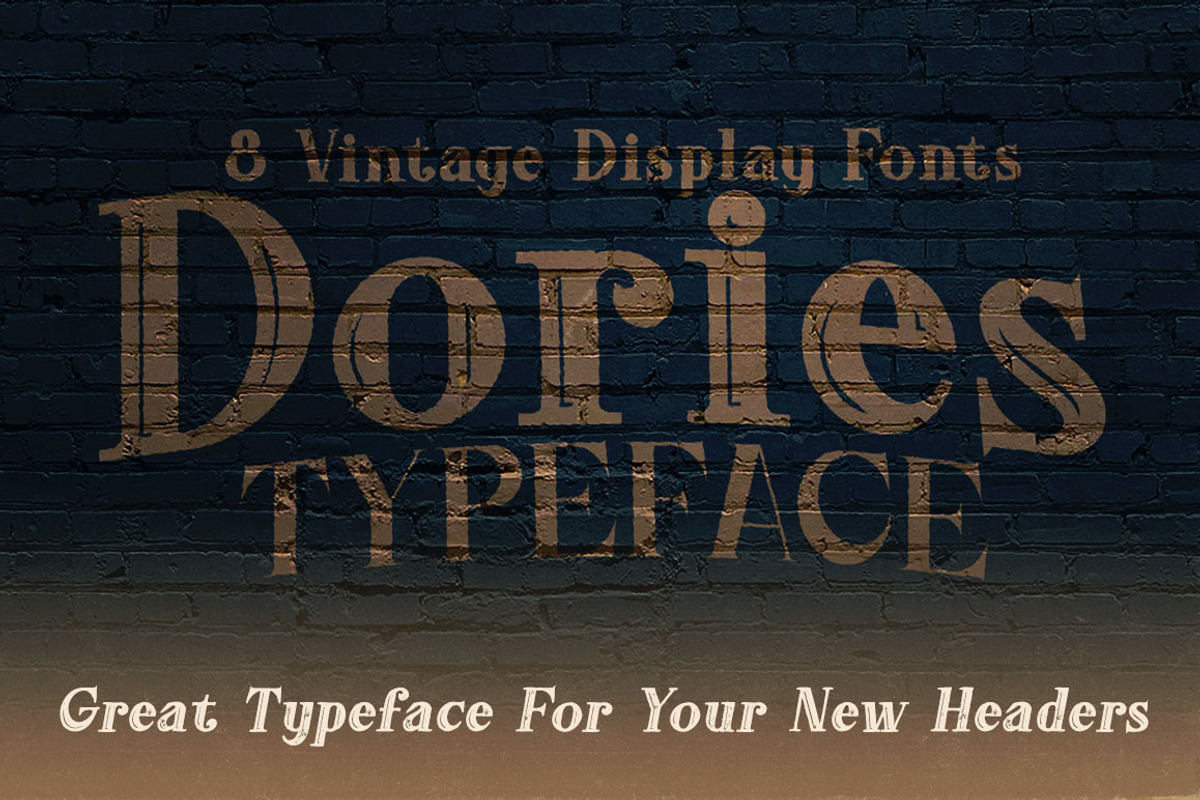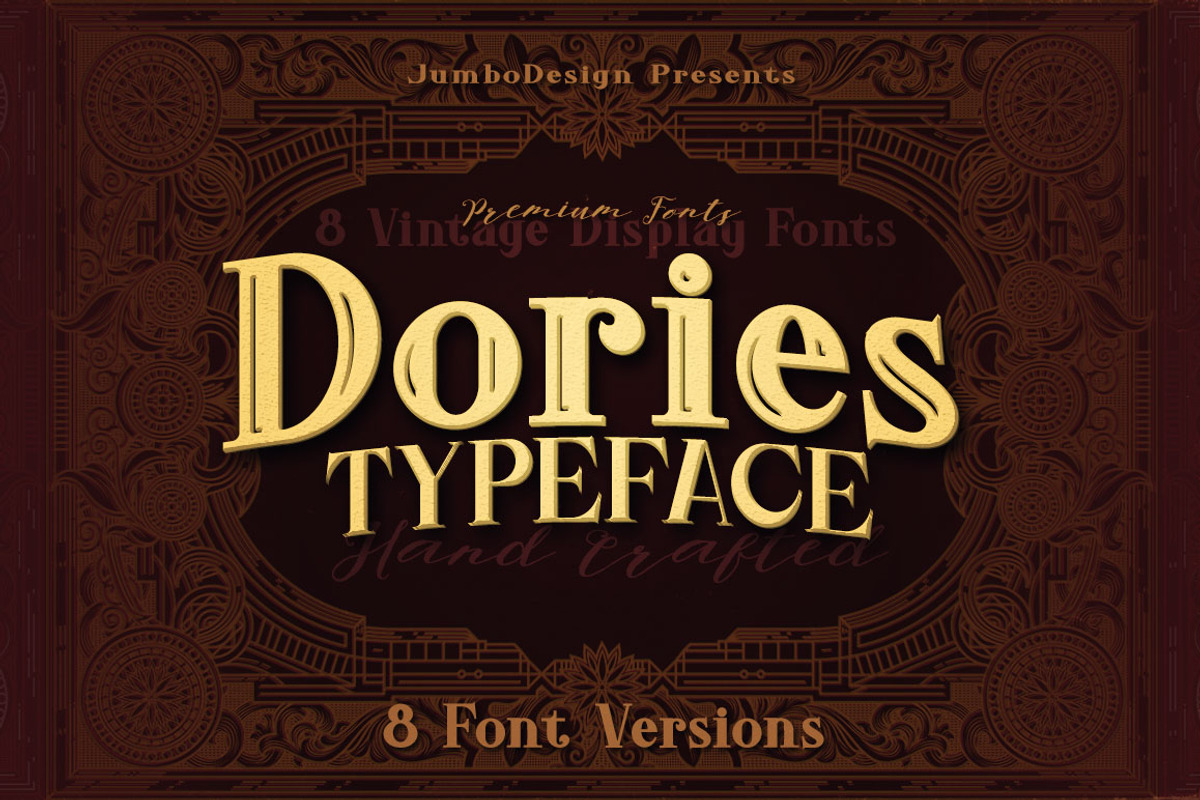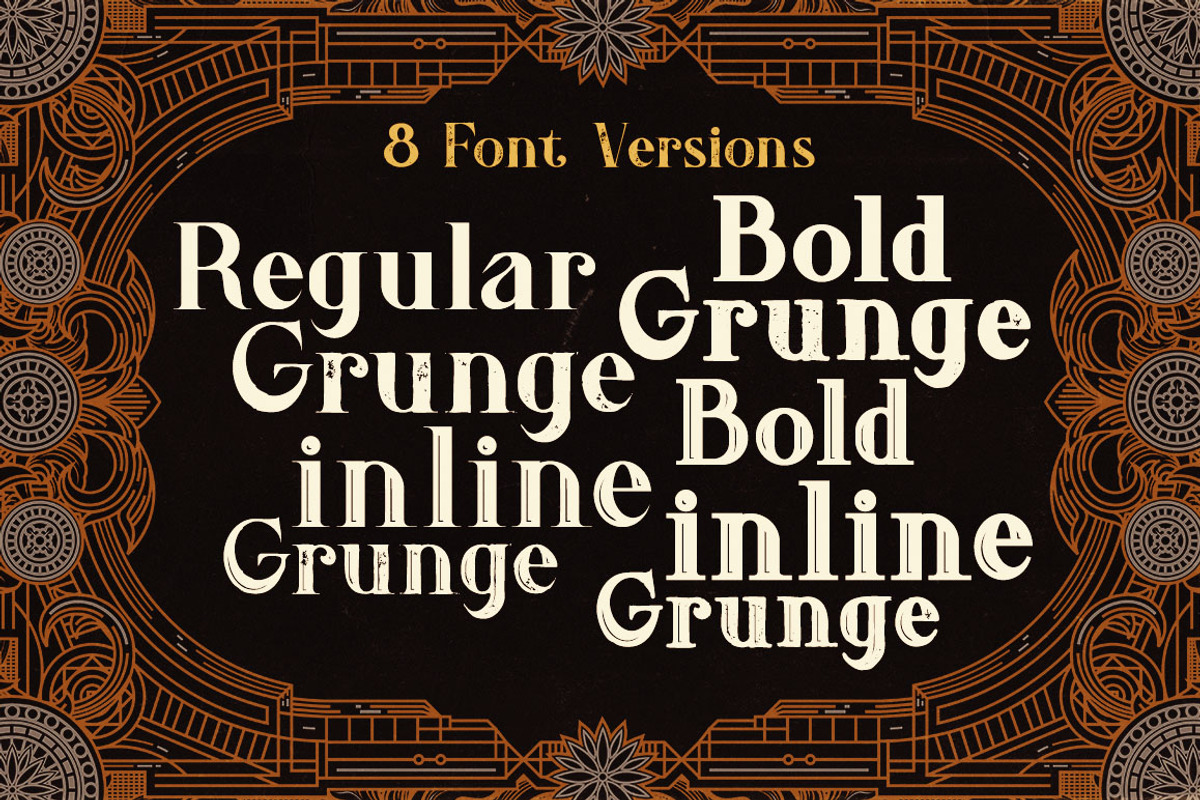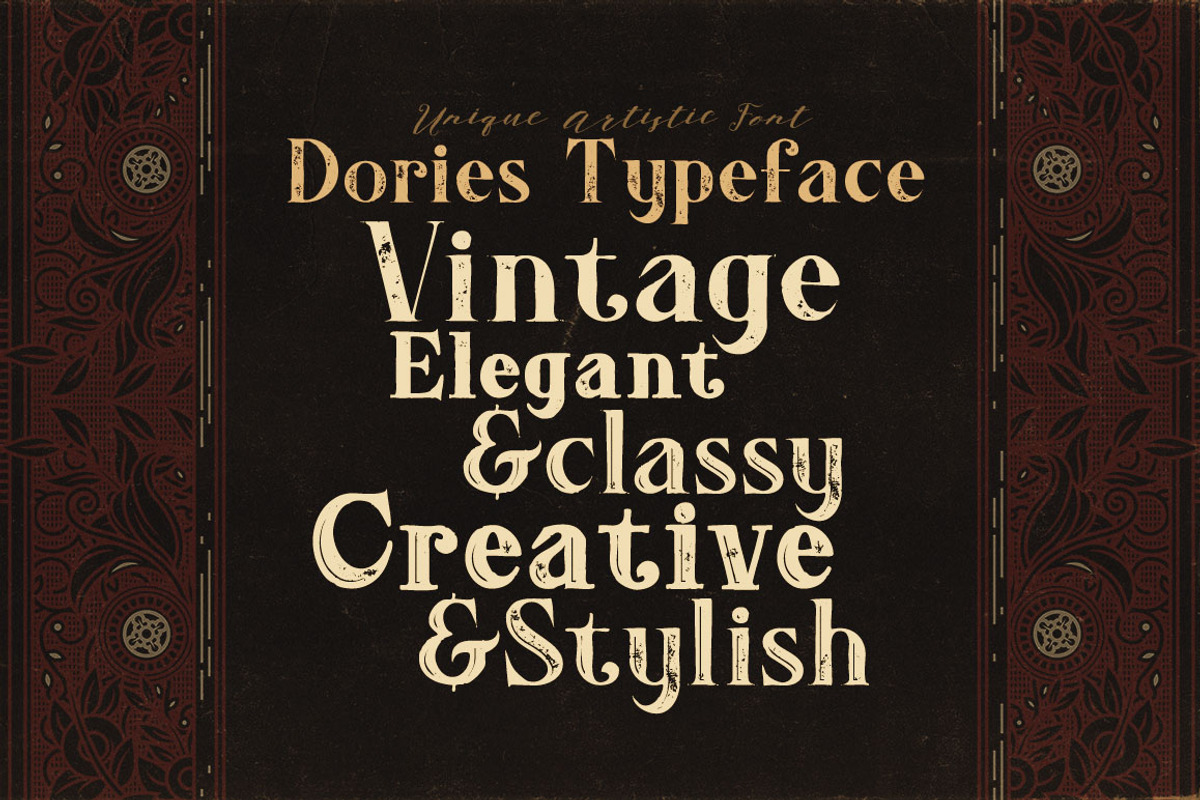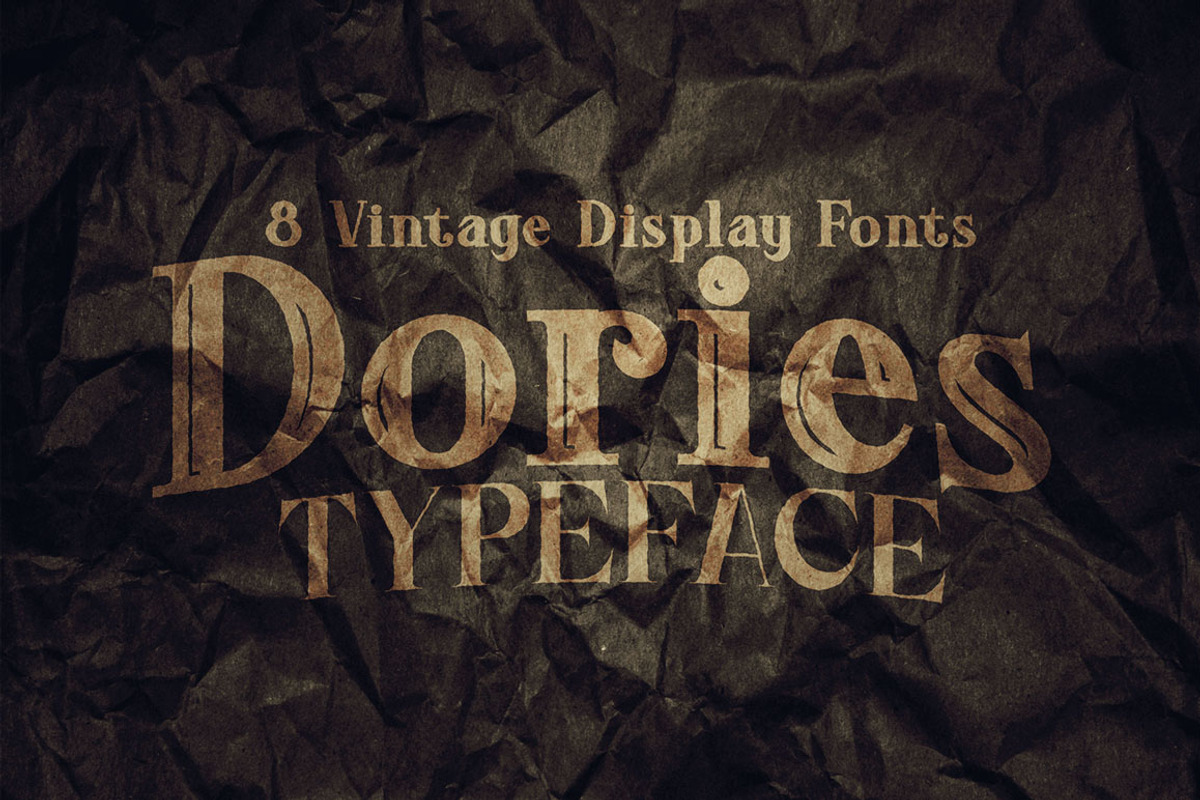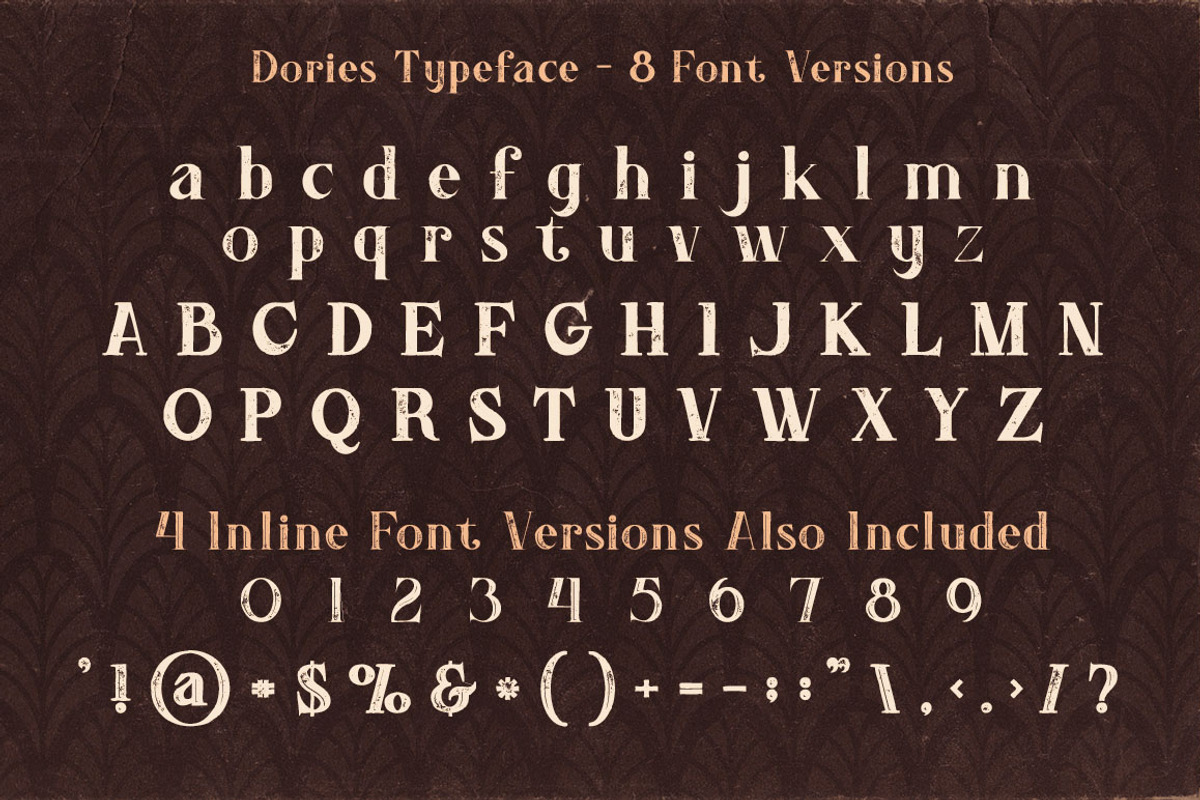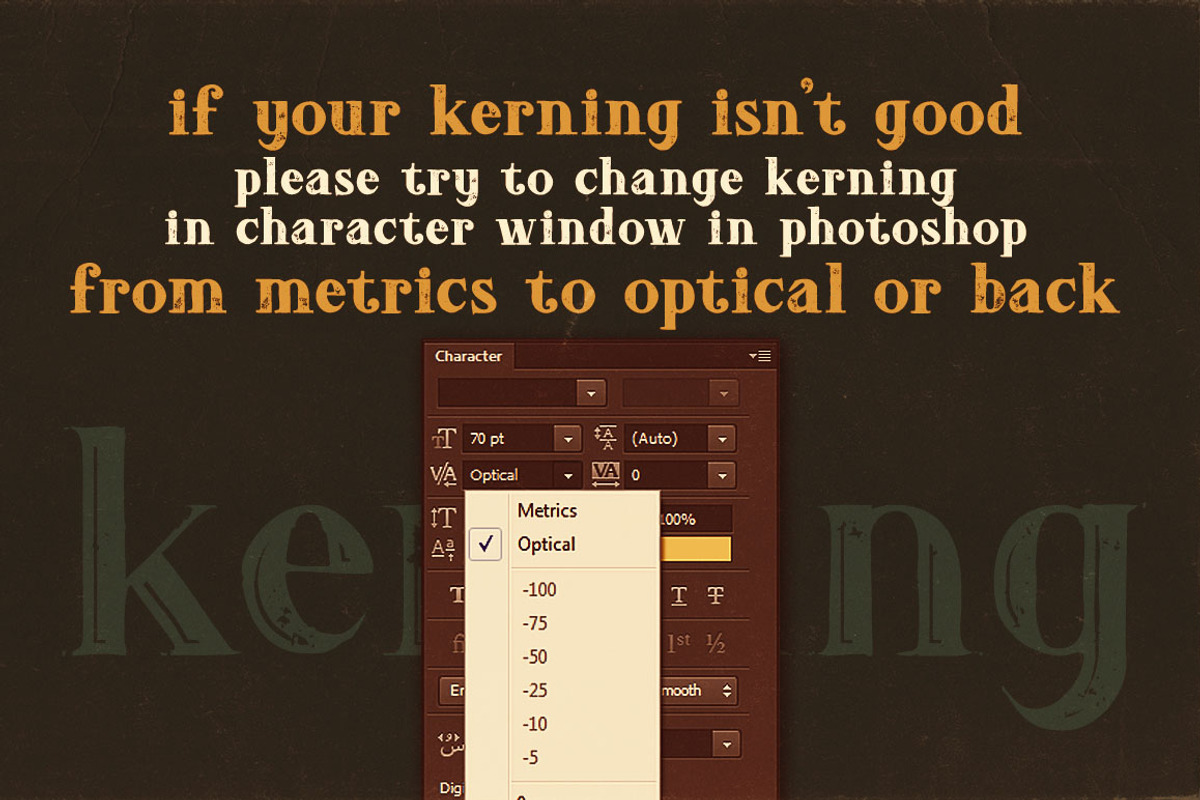
Dories - Display Font
Unique retro - vintage & grunge style custom display font with 8 styles: regular and grunge, inline and grunge, bold & grunge, bold inline and grunge.
Dories - Display Font by JumboDesign fits naturally into Branding, posters, packaging, typography.